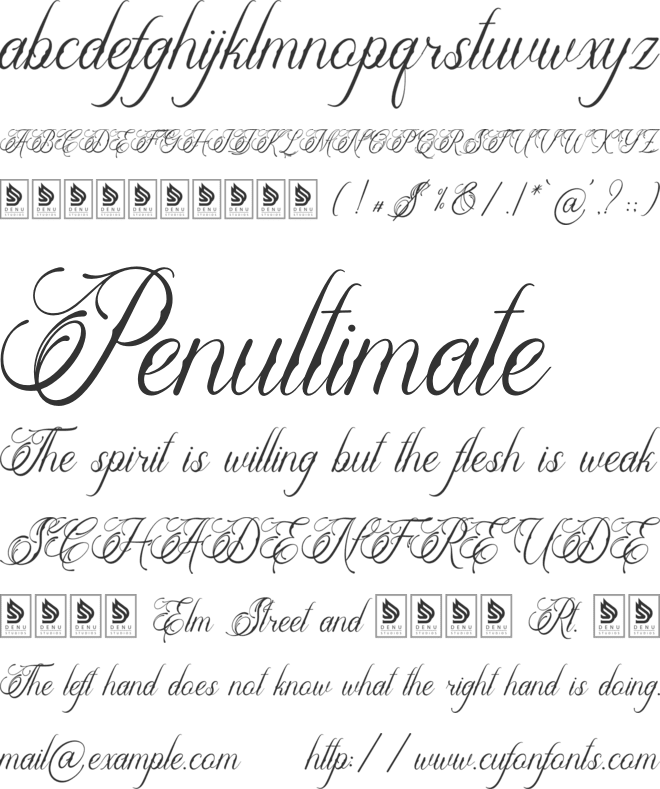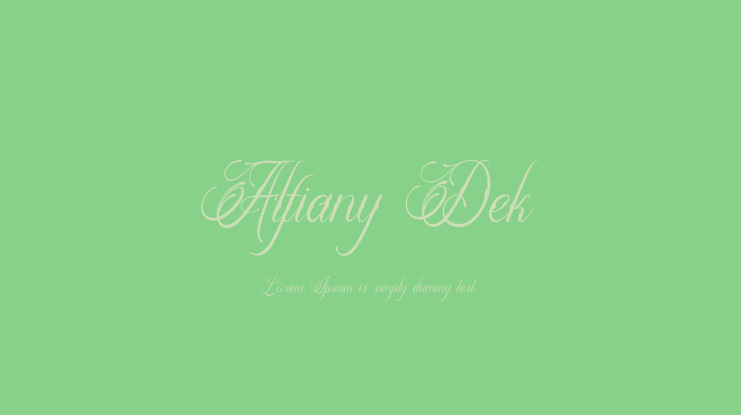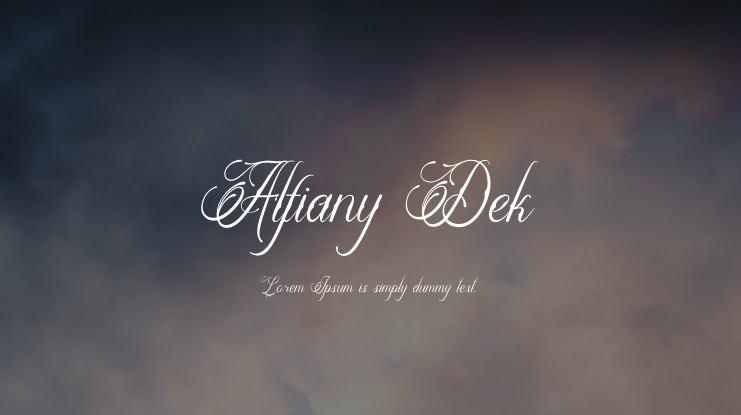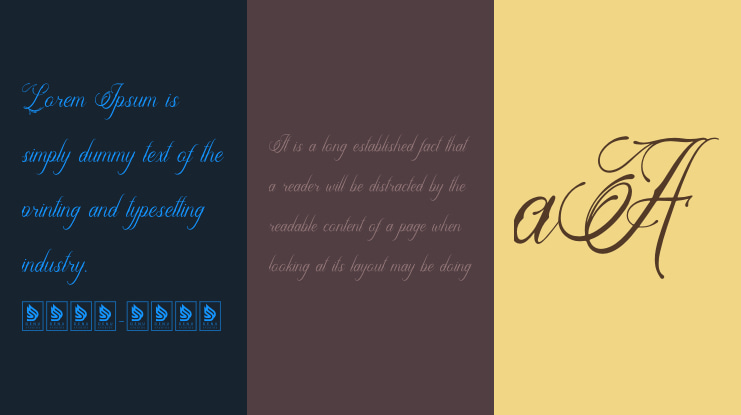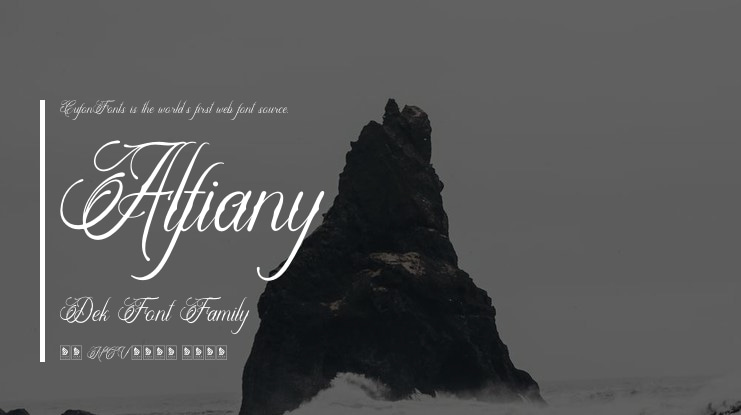
Alfiany Dek | Tattoo Style font is perfect for a variety of projects including logos, branding, homeware designs, product packaging, mugs, quotes, posters, shopping bags, t-shirts, book covers, business cards, invitations, greeting cards, labels, photography, watermarks, special events, and any other projects that could benefit from a Tattoo script aesthetic.